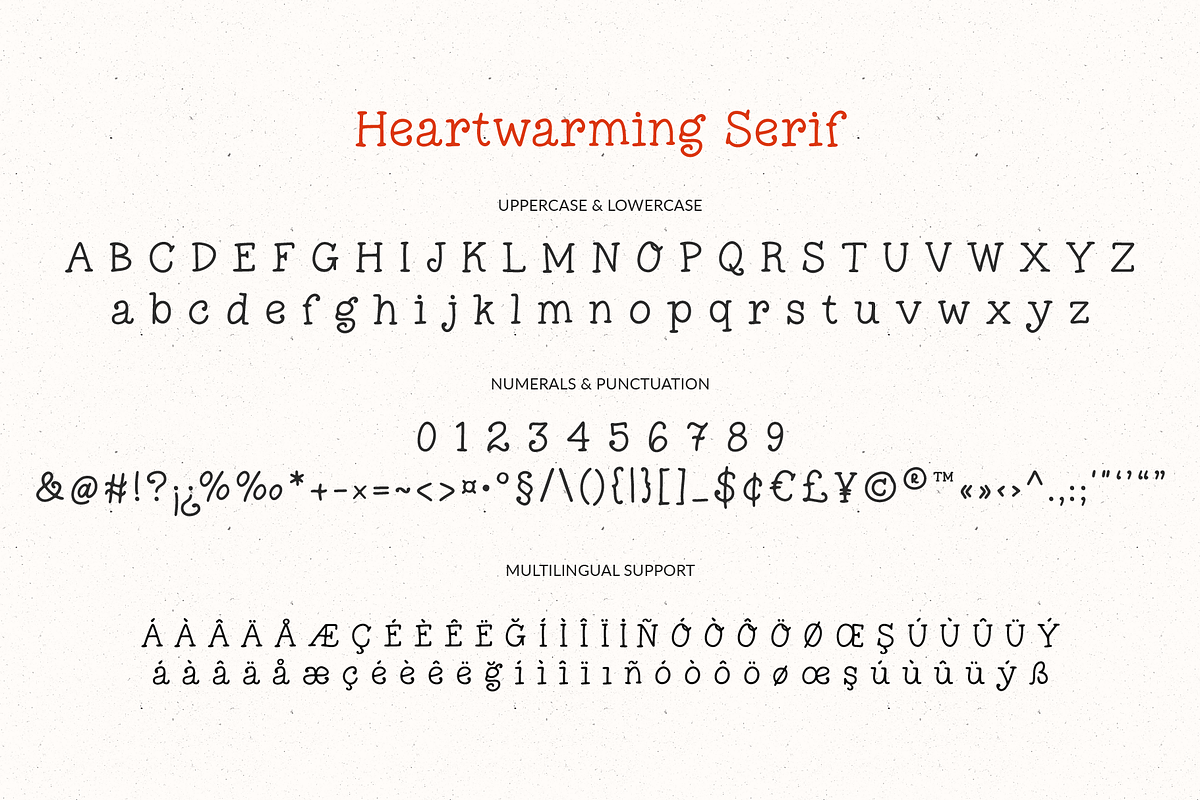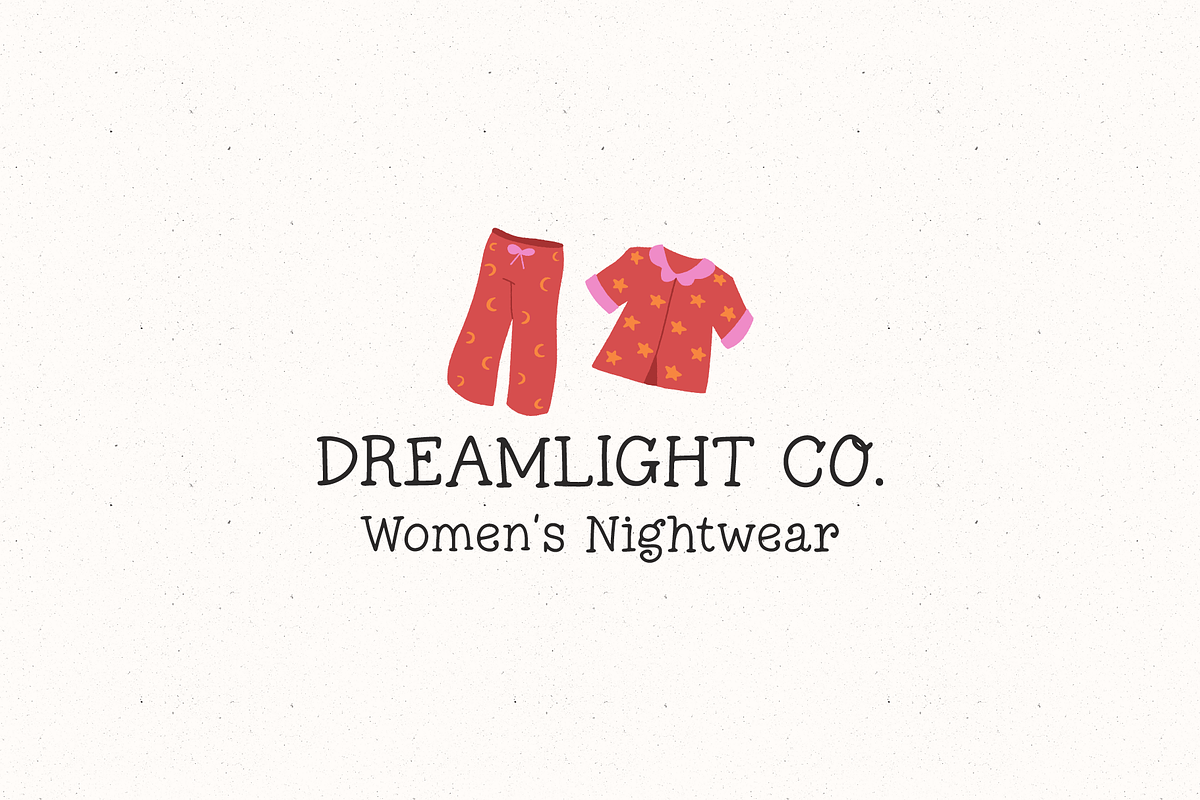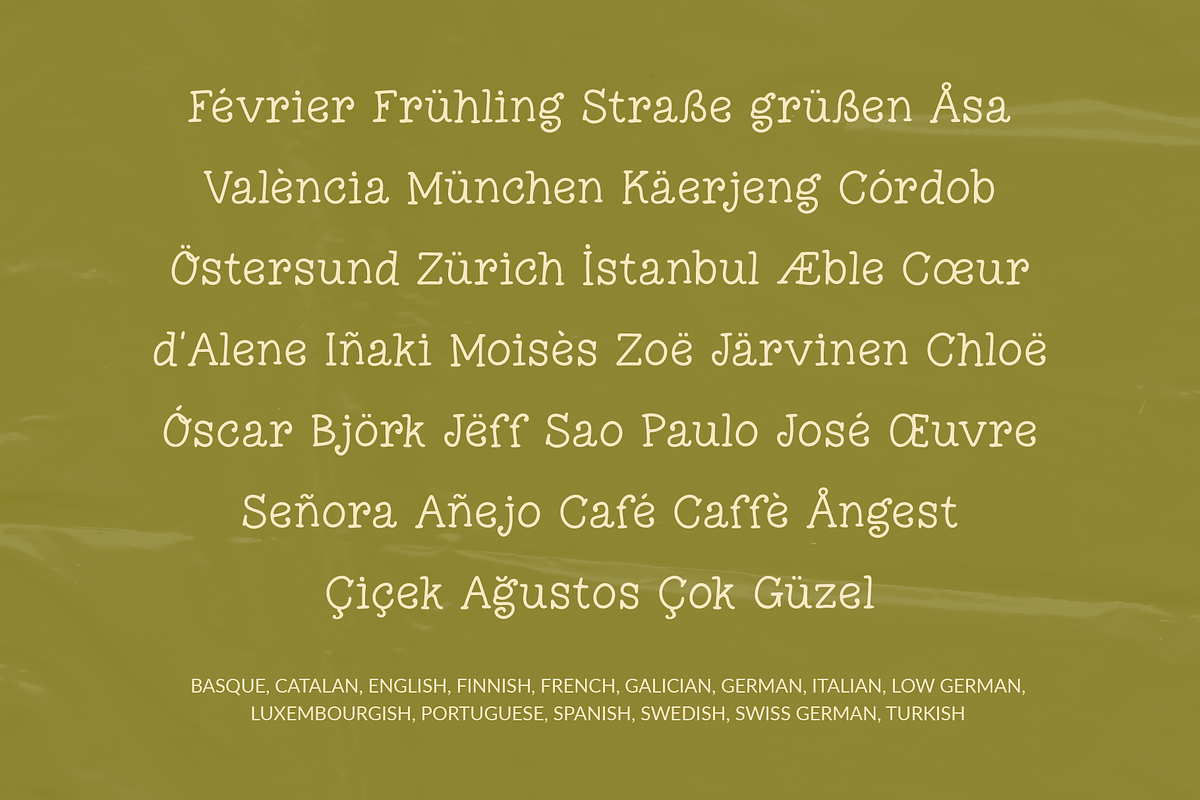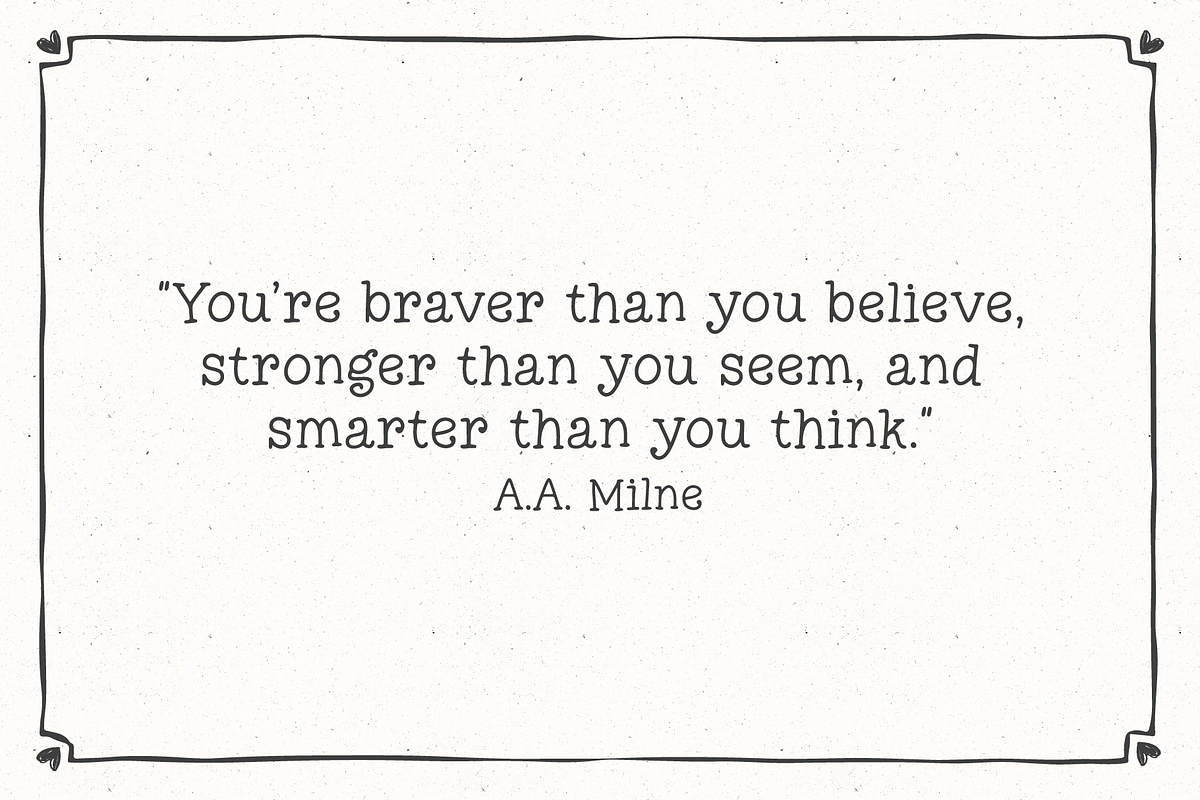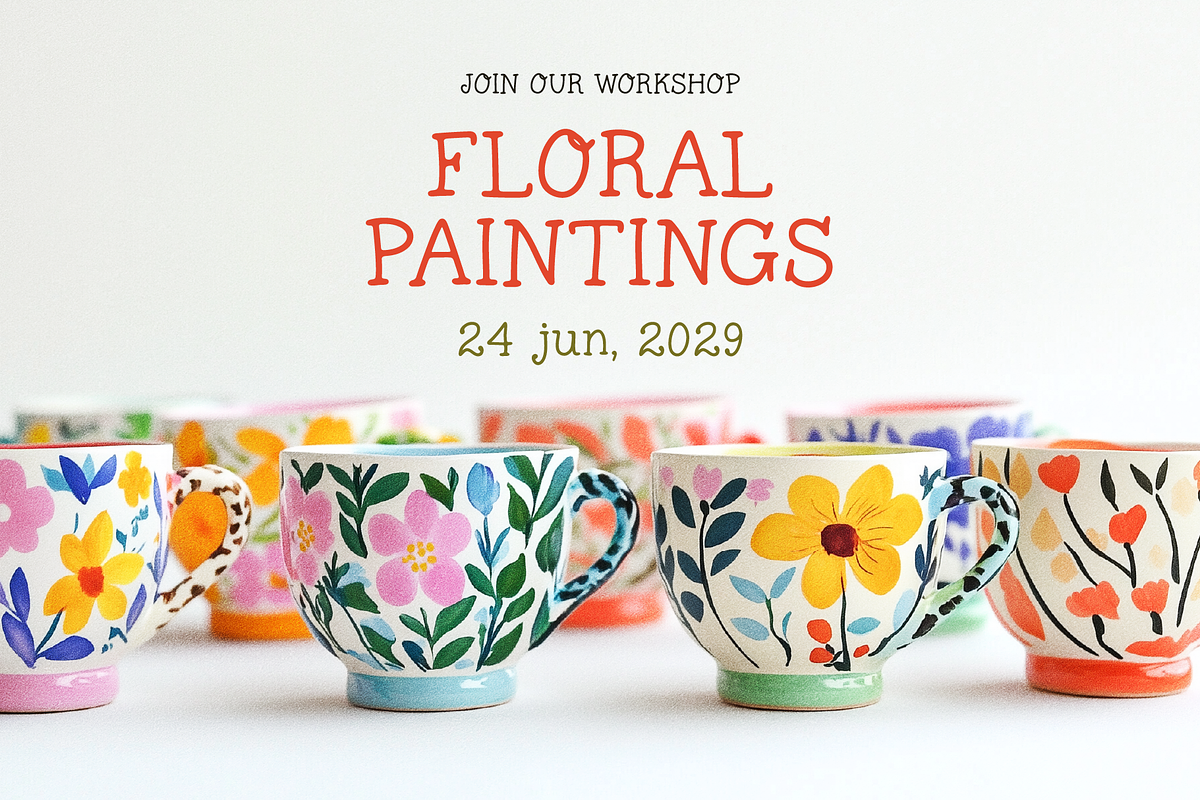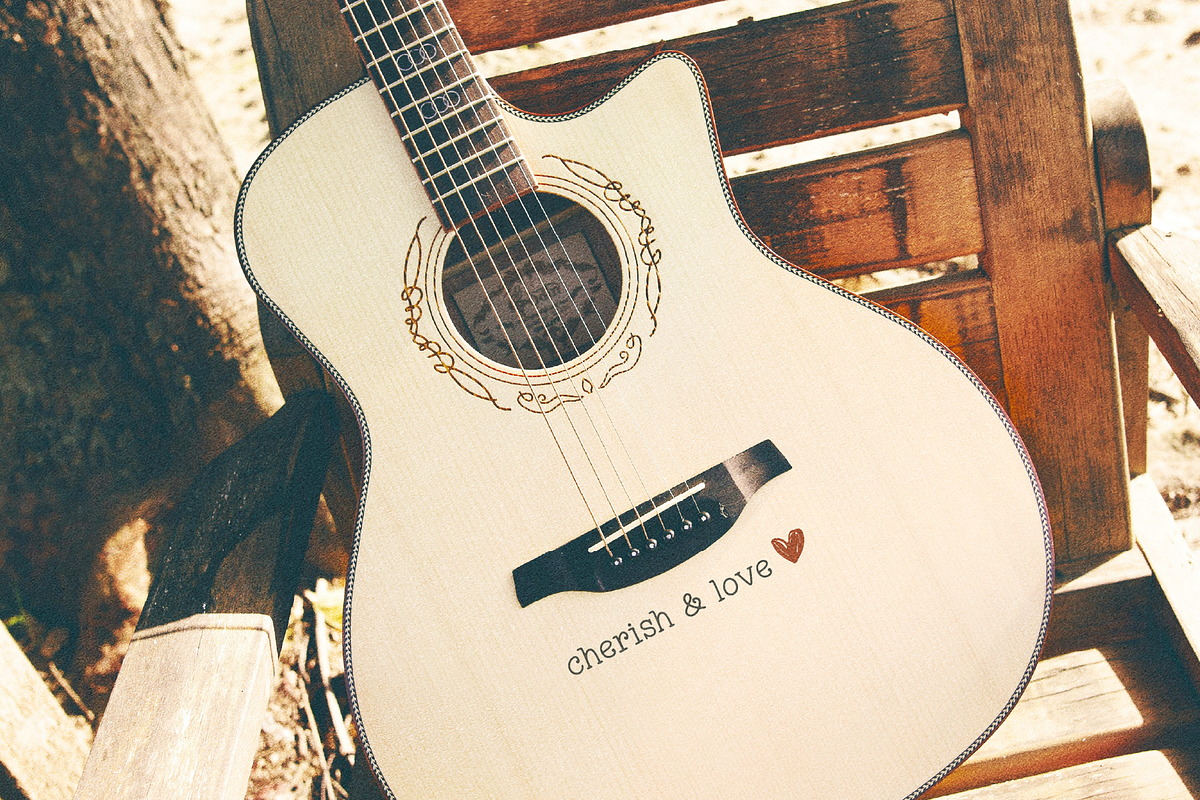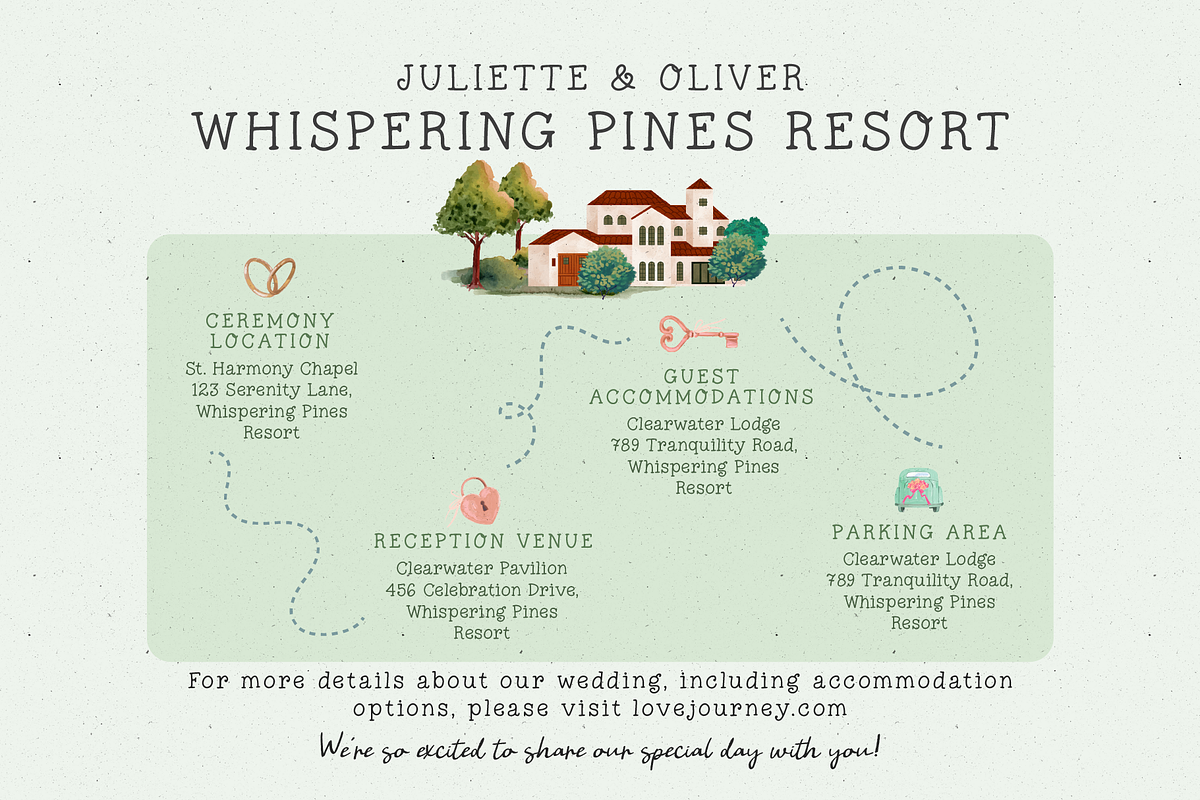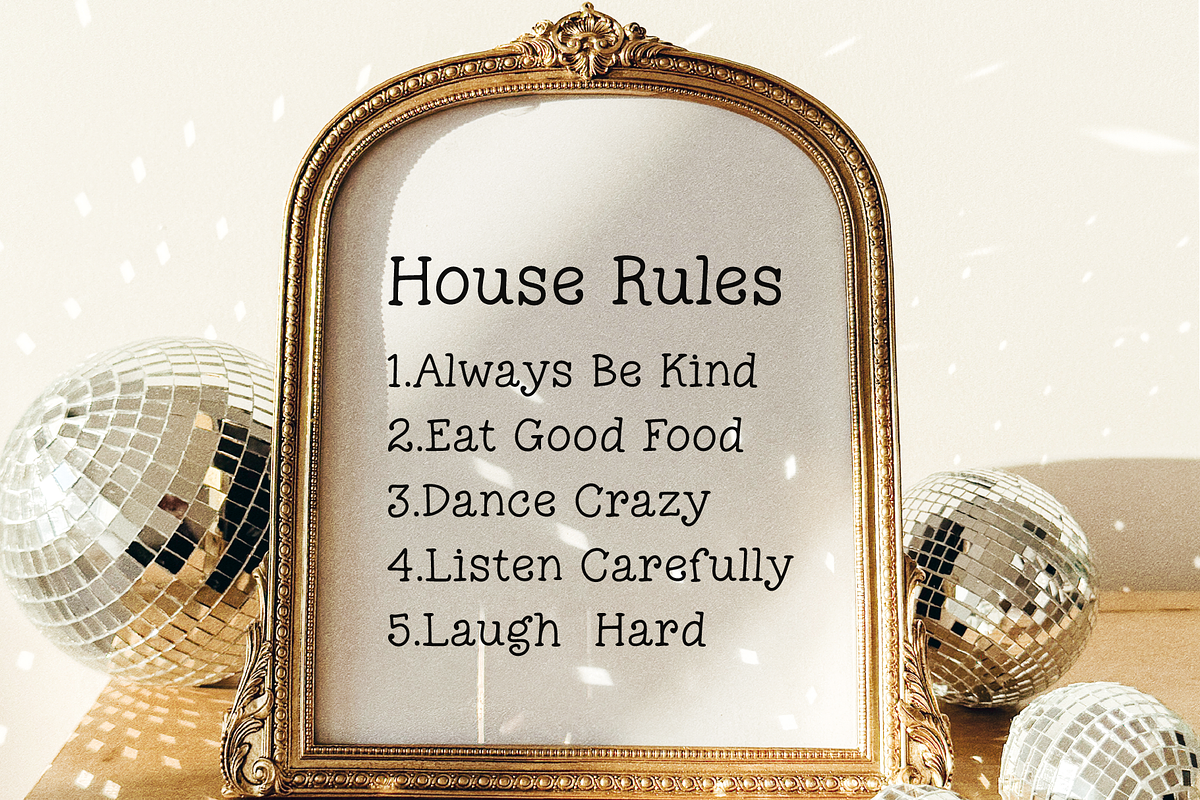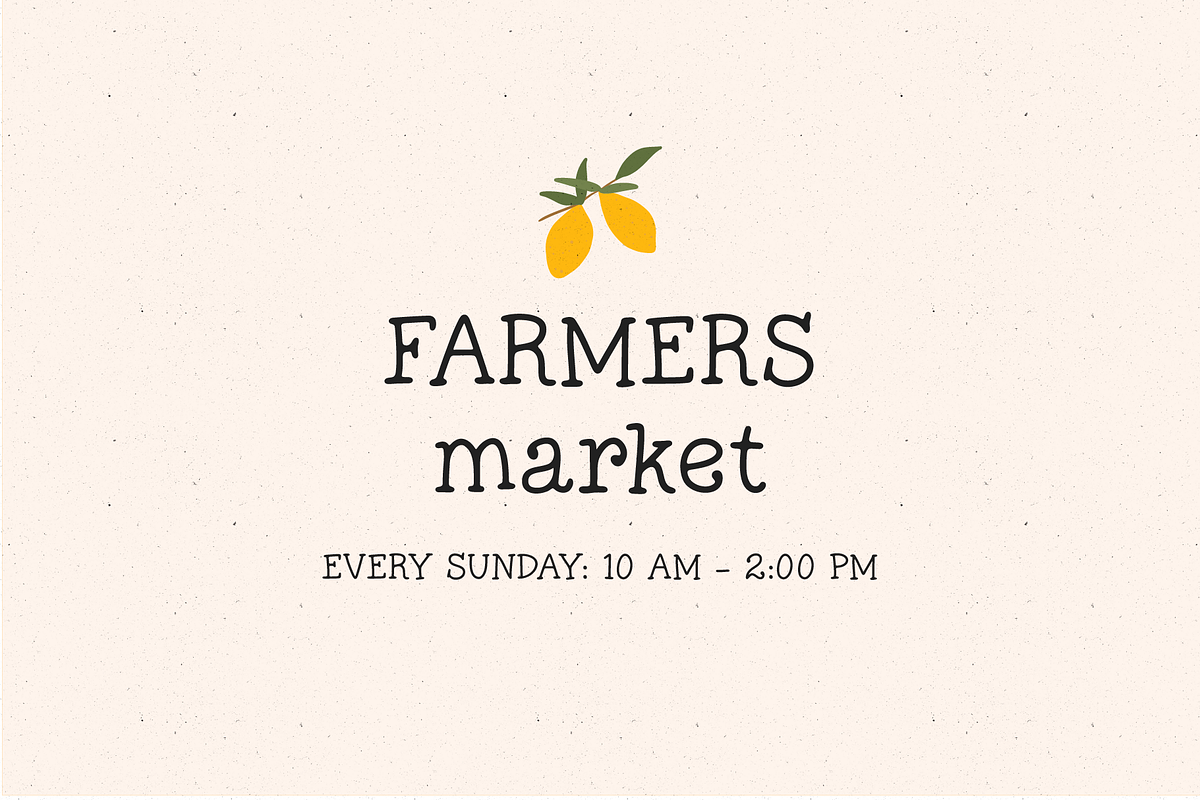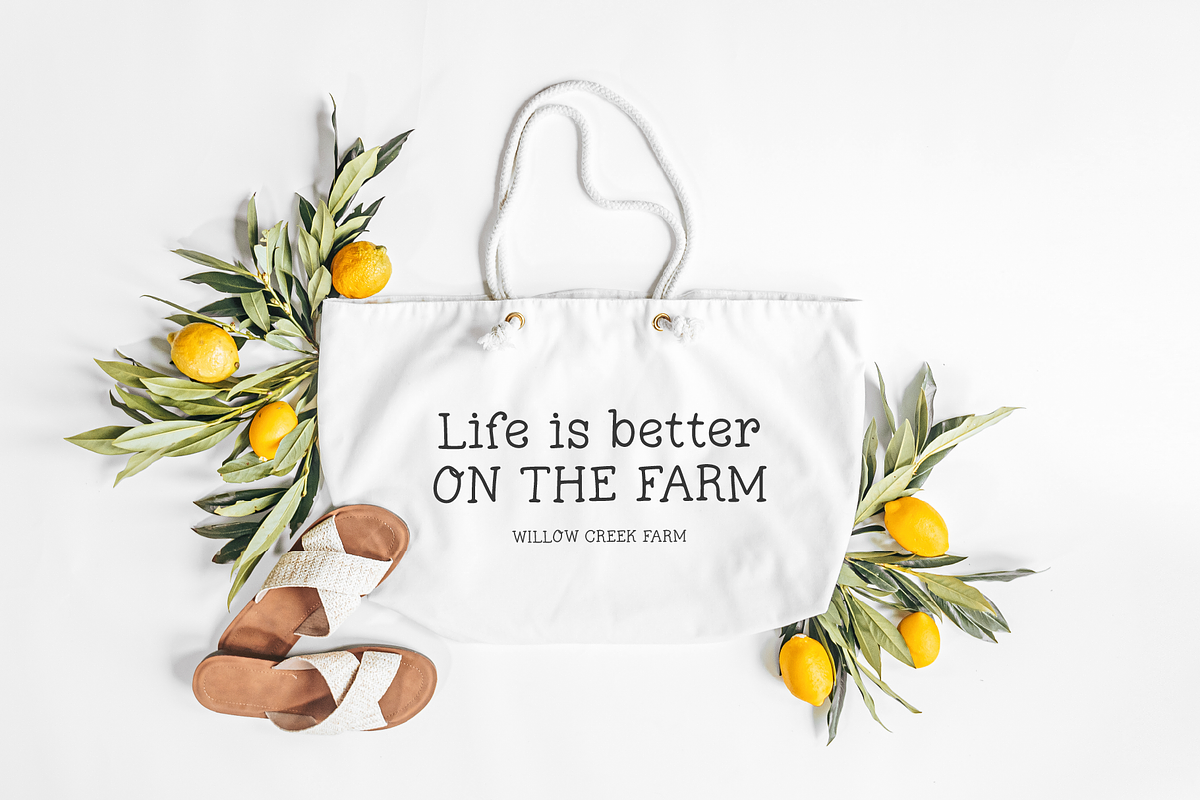
Heartwarming Handwitten Serif
Introducing Heartwarming Serif – A charming, handmade serif font with a simple, heartfelt style perfect for adding a cozy touch to your creative work.
It's great for craft projects, branding, posters, invitations, greeting cards, social media or any project that needs a splash of authenticity.
FONT FEATURES
• Handwritten Serif Font with soft and rounded corners
• Standard characters (uppercase, lowercase, numbers, punctuation, symbols)
• Supported Languages: Danish, English, Filipino, Finnish, French, Friulian, Galician, German, Irish, Italian, Low German, Luxembourgish, Norwegian Bokmål, Norwegian Nynorsk, Spanish, Swedish, Swiss German, Turkish